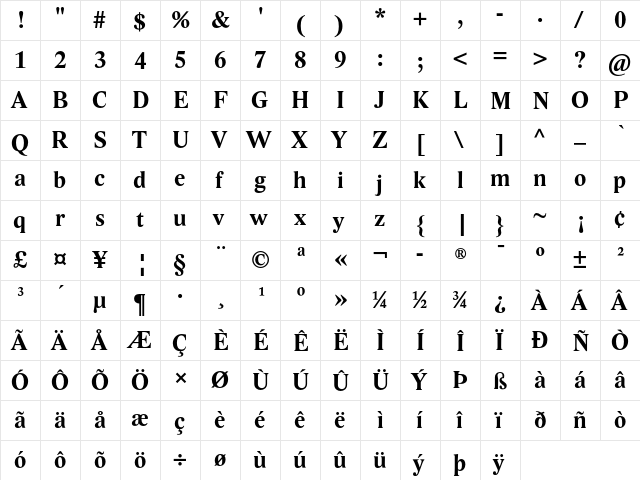
Lido ST Bold
| Designer | Frantisek Storm |
Design Context for Lido ST Typeface
Lido ST offers clean, dependable letterforms without strong stylistic allegiance, making it a practical choice for designers who need flexibility. The heavy weight commands attention and anchors typographic hierarchies.
Pro Tip: Pair Lido ST with a font of contrasting weight or personality to build a more expressive typographic hierarchy.